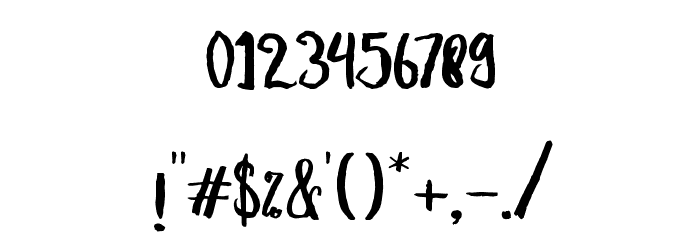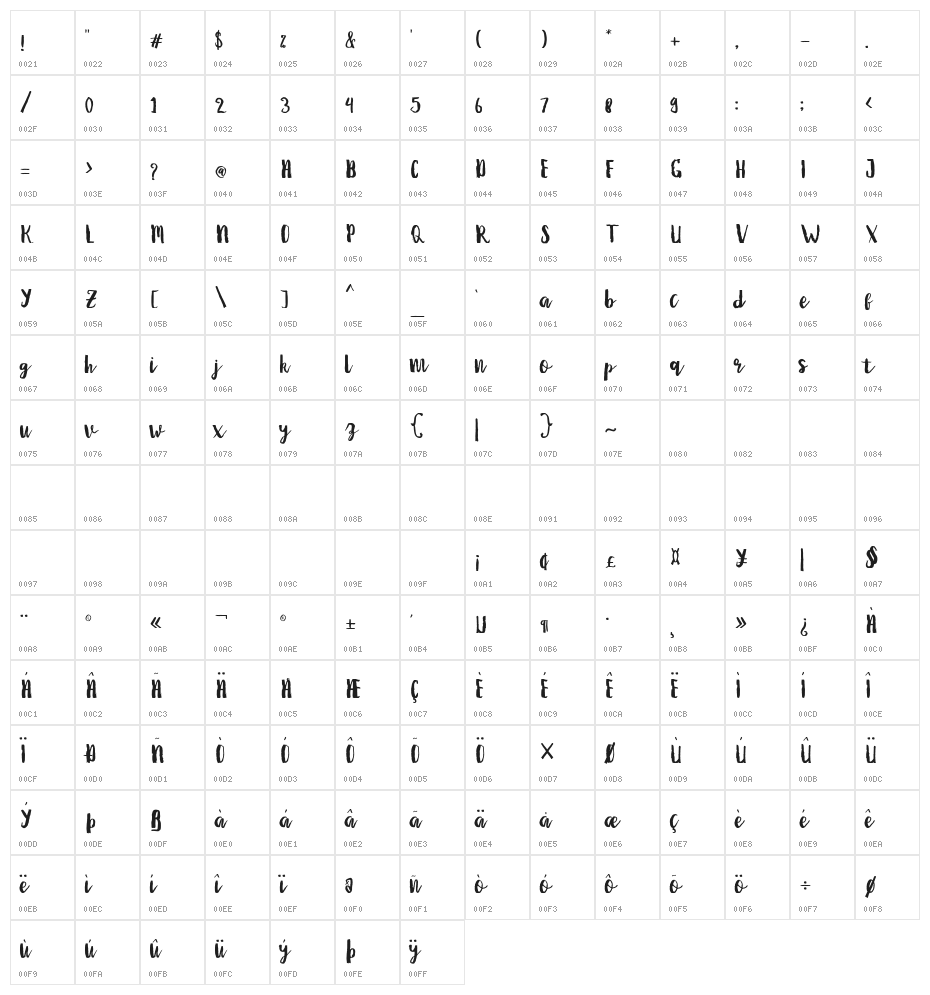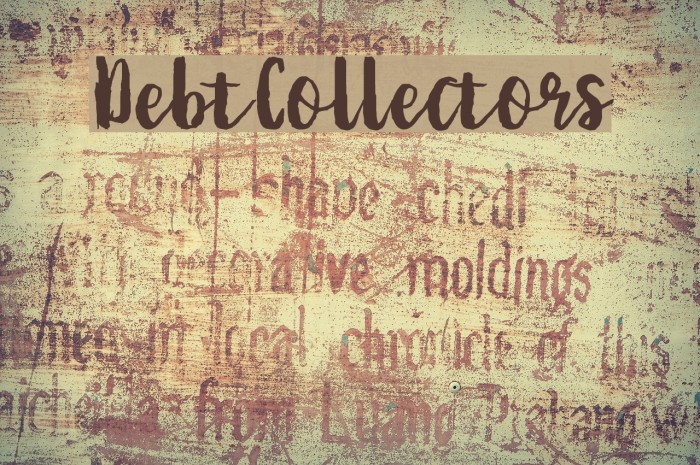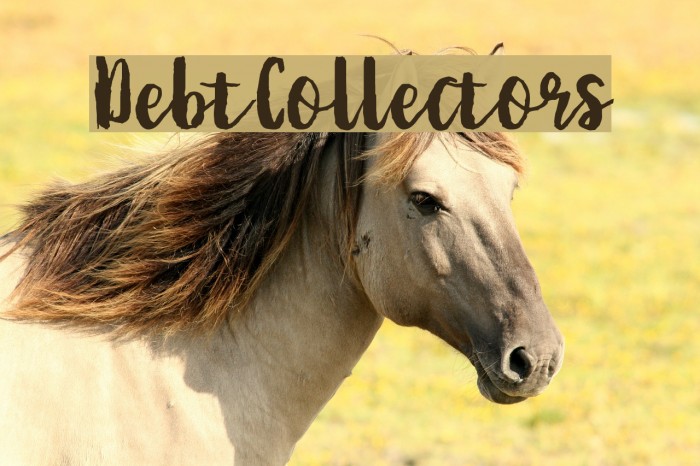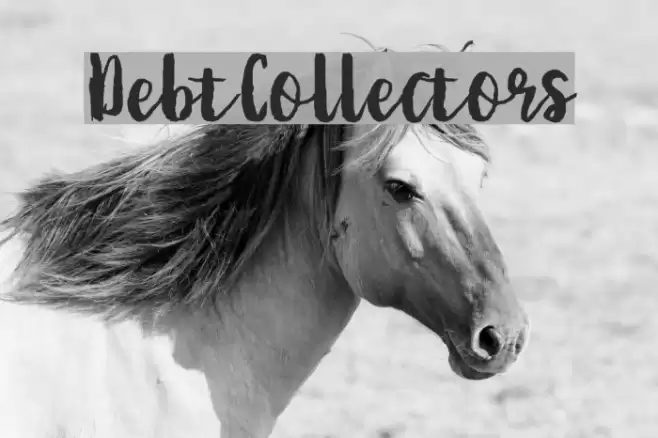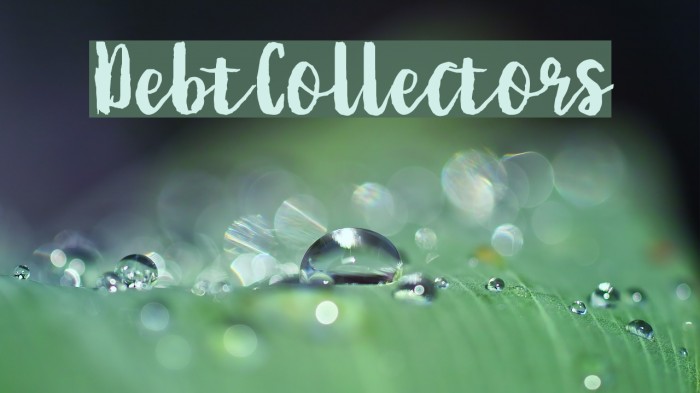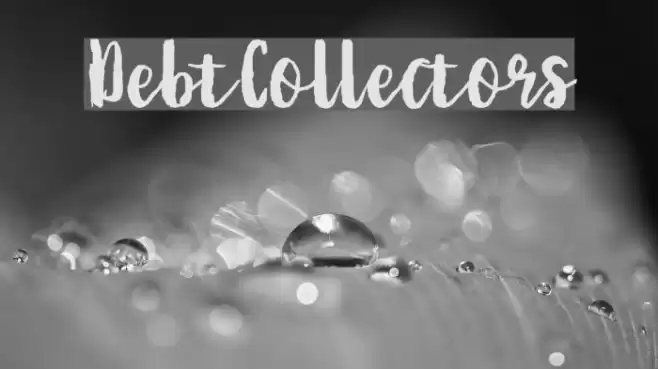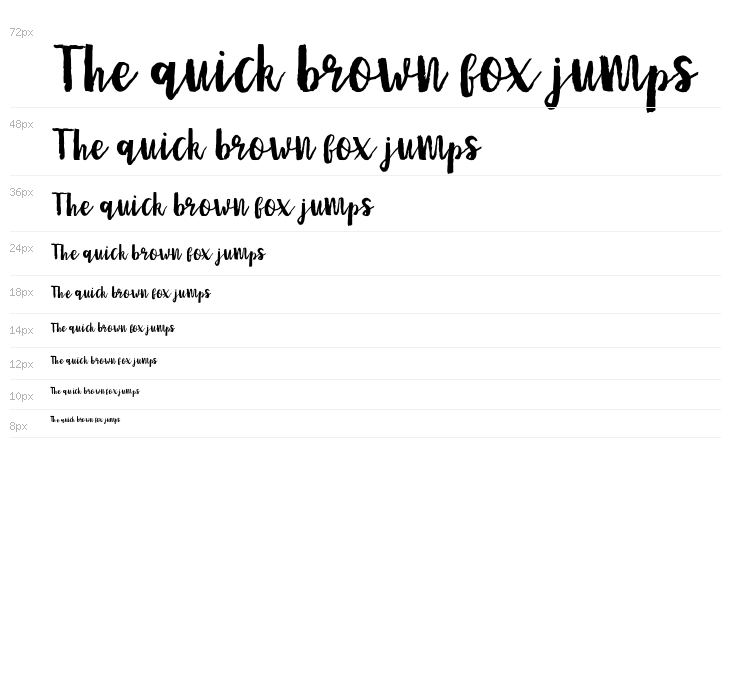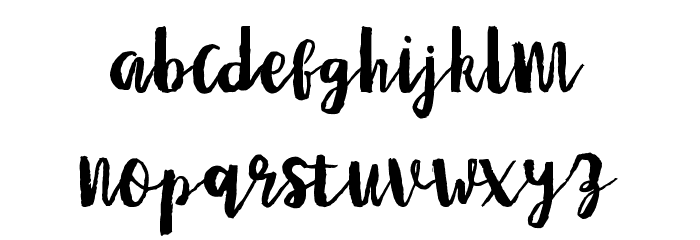
DebtCollectors Font
DebtCollectors Description
This font features a bold, brush-like style with a hand-drawn appearance. The uppercase letters are robust and impactful, while the lowercase letters maintain a fluid, cursive quality. The numbers and special characters follow the same artistic brushstroke design, adding a cohesive look across all characters. The font's organic and dynamic strokes give it a lively and expressive feel, making it suitable for creative and artistic projects. Its unique style is both eye-catching and versatile, perfect for making a statement in any design.
| Proposed Projects | Ideal for posters, branding, social media graphics, and creative invitations. |